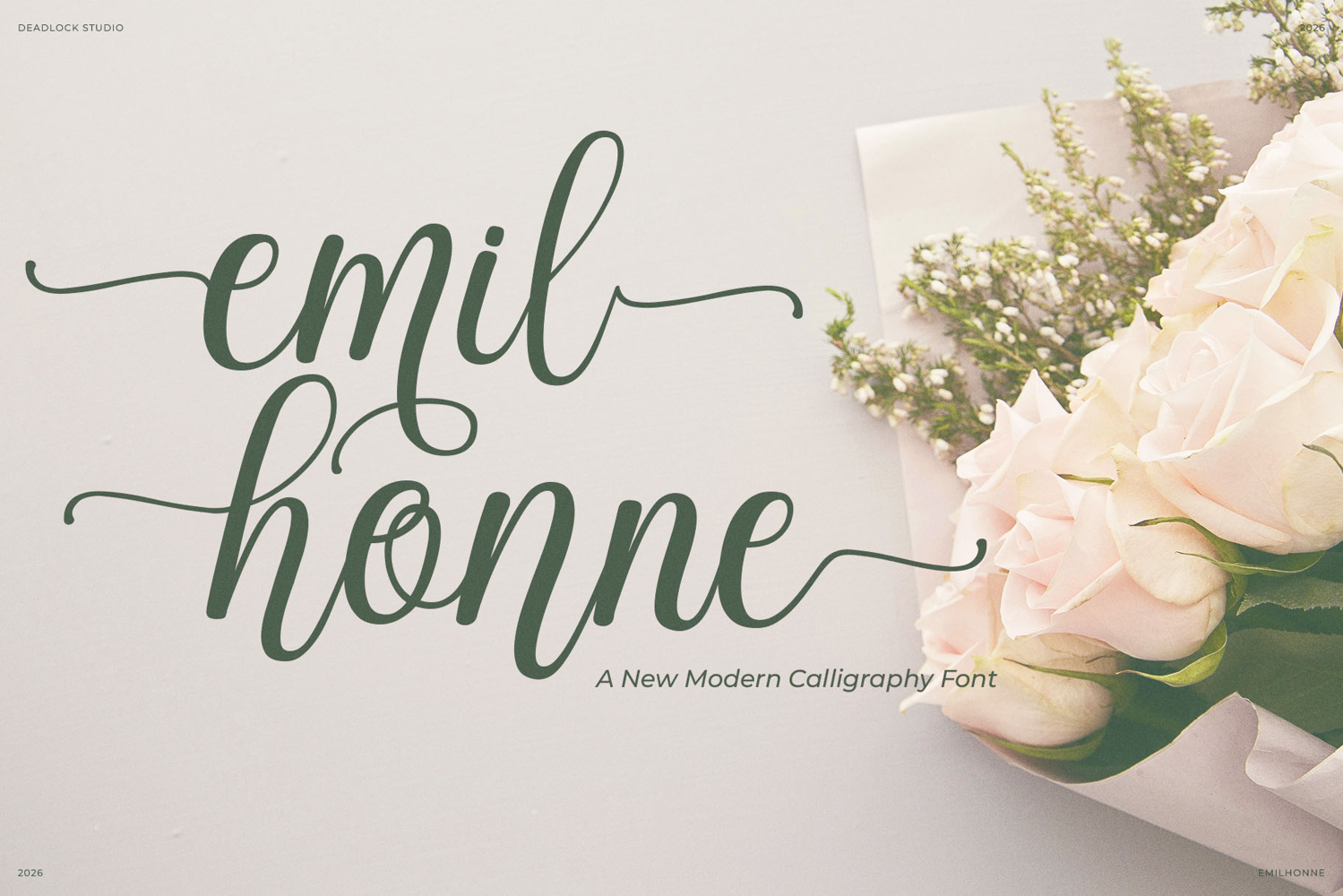
Emilhonne
Emilhonne is a sophisticated modern calligraphy font designed to bring timeless elegance and contemporary flair to your creative projects. Crafted with fluid, graceful strokes and a balanced rhythm, this typeface captures the essence of luxury and romance.
It is the perfect choice for high-end branding, wedding invitations, elegant stationery, logos, social media graphics, and romantic editorial layouts.
Key Features:
- Modern Calligraphy Aesthetic: Smooth lines with a natural, hand-lettered feel.
- Stylistic Sets (ss01–ss05): Multiple alternate characters to customize beginnings, endings, and flourishes.
- Discretionary Ligatures (dlig): Beautifully crafted letter connections for a seamless, artistic look.
- Stylistic Alternates (salt): Extra character variations to add unique personality to your text.